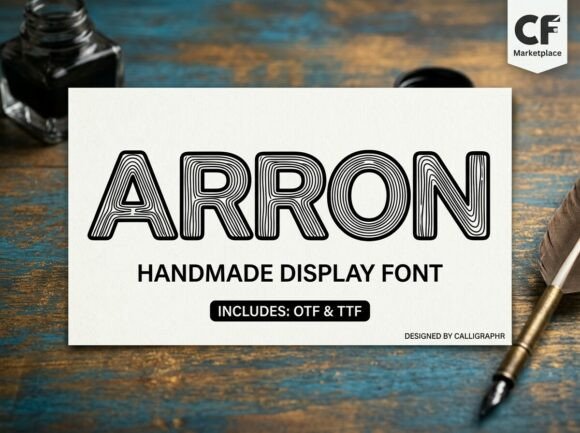
The Design Moment That Changed Everything
I still remember the design project that led me to discover Arron Font. I was working on a branding project for a sustainable outdoor gear company, and I was struggling to find the perfect font that captured their eco-friendly and adventurous vibe. The client wanted something that felt natural, yet modern and attention-grabbing. After hours of searching, I stumbled upon Arron Font, and it was love at first sight! đź’ˇ
What Makes Arron Font Special?
Arron Font is an organic display typeface that embodies a “natural-and-noteworthy” soul. Its massive, rounded letterforms feature an internal texture of rhythmic, hand-drawn “wood grain” or “topographic” lines, bridging the gap between vintage linocut art and modern sustainable branding. This unique design makes it perfect for independent woodworking studio identities, boutique outdoor gear logos, organic skincare packaging, and high-impact social media headers.
What I Love About Arron Font ✨
• âś… Unique and eye-catching design that stands out from the crowd
• âś… Perfect blend of vintage and modern elements
• âś… Highly legible, even at large sizes
• âś… Versatile and adaptable to various design contexts
• ⚠️ May not be suitable for body text or small font sizes due to its display nature
• ⚠️ Limited availability of stylistic alternates, which might limit creative flexibility
The Backstory Behind Arron Font
Arron Font was designed with the intention of capturing the essence of natural, sustainable branding. The designer aimed to create a font that would evoke the feeling of handmade, earthy products while still being modern and attention-grabbing. The result is a unique and versatile typeface that has become a go-to choice for designers seeking to create eco-friendly and adventurous brand identities.
What is Arron Font best suited for? Arron Font is ideal for independent woodworking studio identities, boutique outdoor gear logos, organic skincare packaging, and high-impact social media headers.
Can I use Arron Font for body text? While Arron Font is a display typeface, it’s not recommended for body text or small font sizes due to its large and ornate design.
Does Arron Font support OpenType features? Yes, Arron Font supports OpenType features such as ligatures and stylistic alternates, which can be accessed in compatible design software.